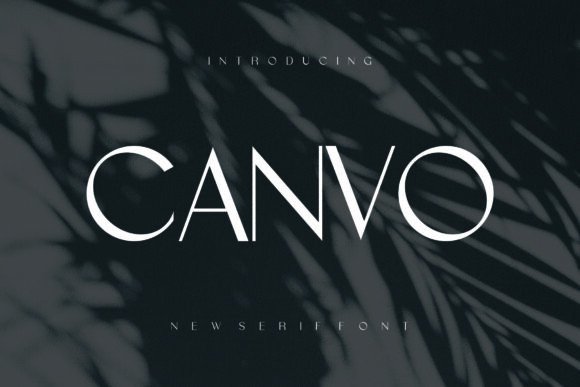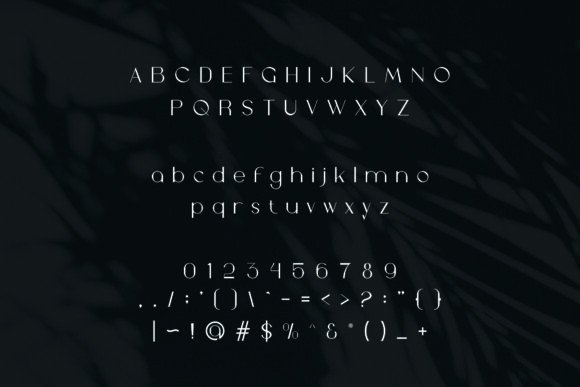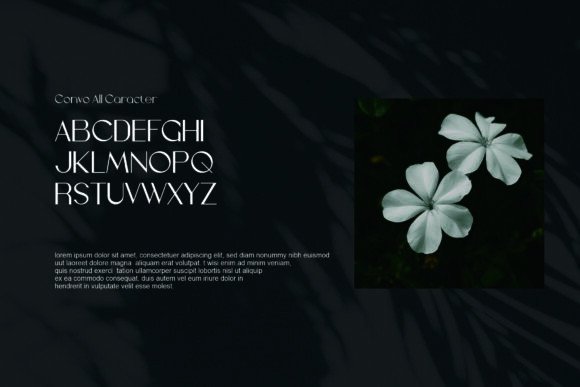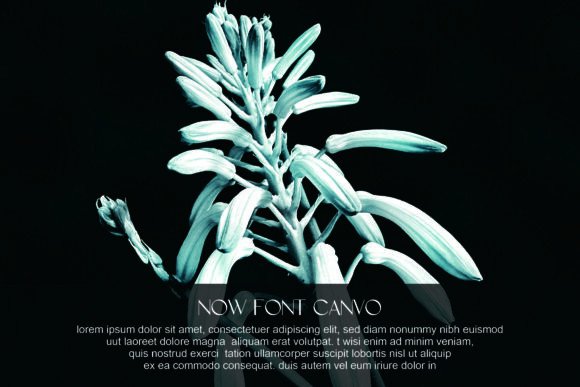
Convo Font
About the Convo Font
The Convo Font is here to transform your projects with its distinctive character and style. Canvo is a refined and stylish serif font that combines contemporary sophistication with timeless elegance. Featuring sleek lines, high contrast strokes, and minimalistic details, it’s perfect for high-end branding, fashion editorials, luxury packaging, logos, and magazine layouts. Canvo effortlessly adds a touch of class and modern flair to any design project.
Convo’s elegant, high-contrast design excels in headlines, short-form text, and applications requiring visual impact, such as logos, posters, and packaging for luxury goods. Its refined aesthetic makes it ideal for brands projecting sophistication and exclusivity. Avoid using Convo for body text or lengthy paragraphs; its strong character and high x-height can strain readability in extended use.
Pairing Convo with a clean sans-serif like Lato or Open Sans provides a pleasing contrast, balancing its formality with contemporary accessibility. For a more luxurious feel, consider a delicate script font like Great Vibes, or a geometric sans-serif like Montserrat for a modern edge.
Convo’s overall personality is sophisticated and refined, yet approachable. It successfully conveys a sense of high quality and timeless style without feeling overly austere or inaccessible.
Convo Font Usage Examples